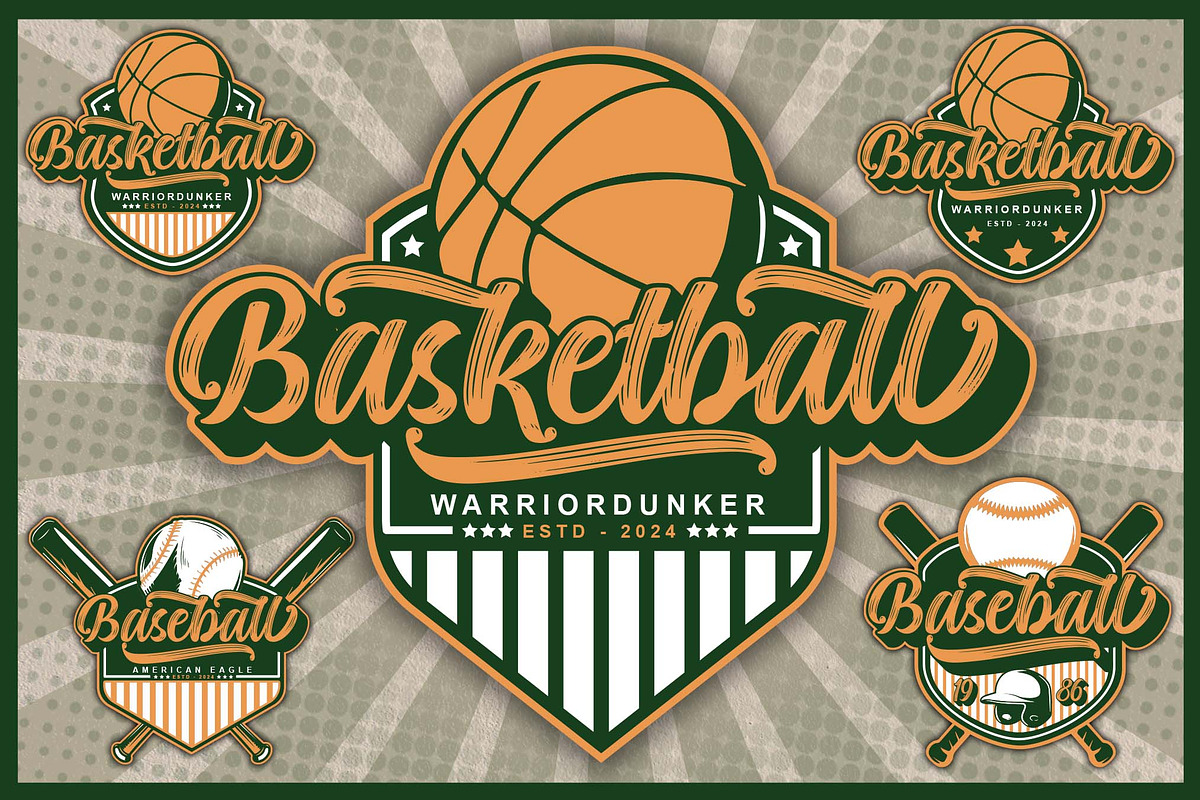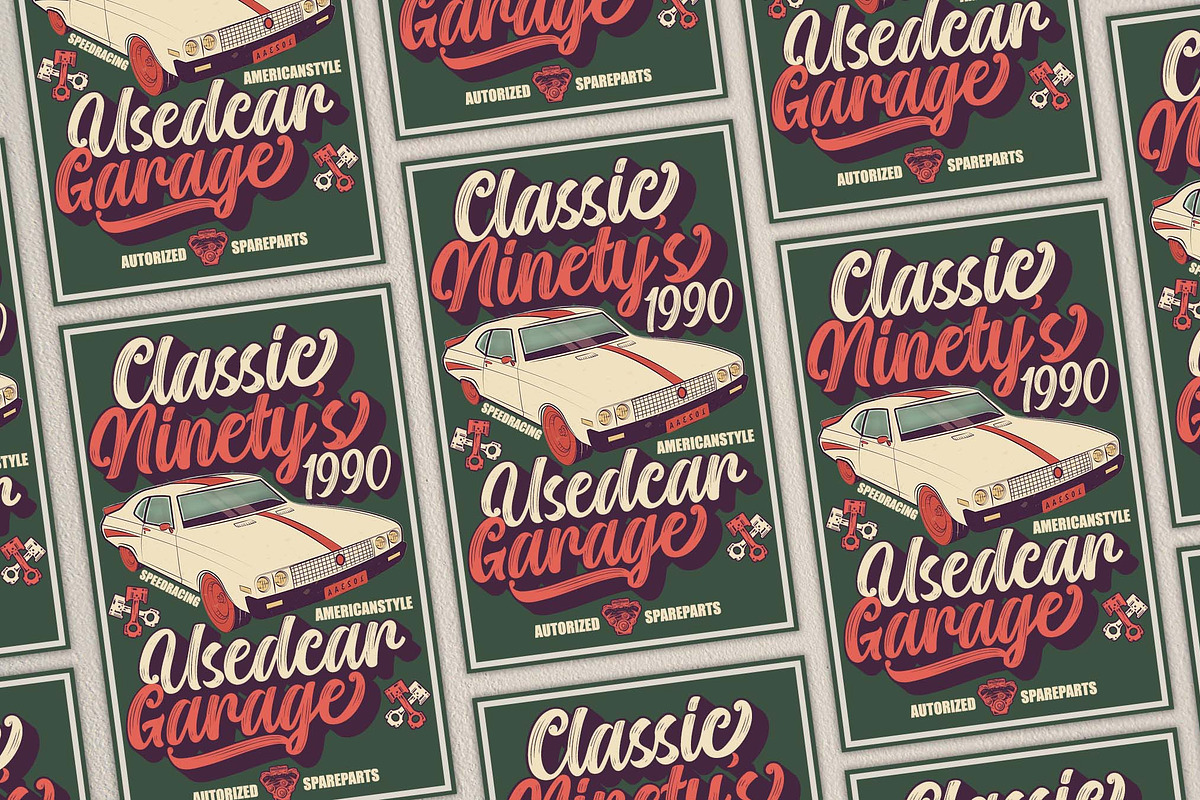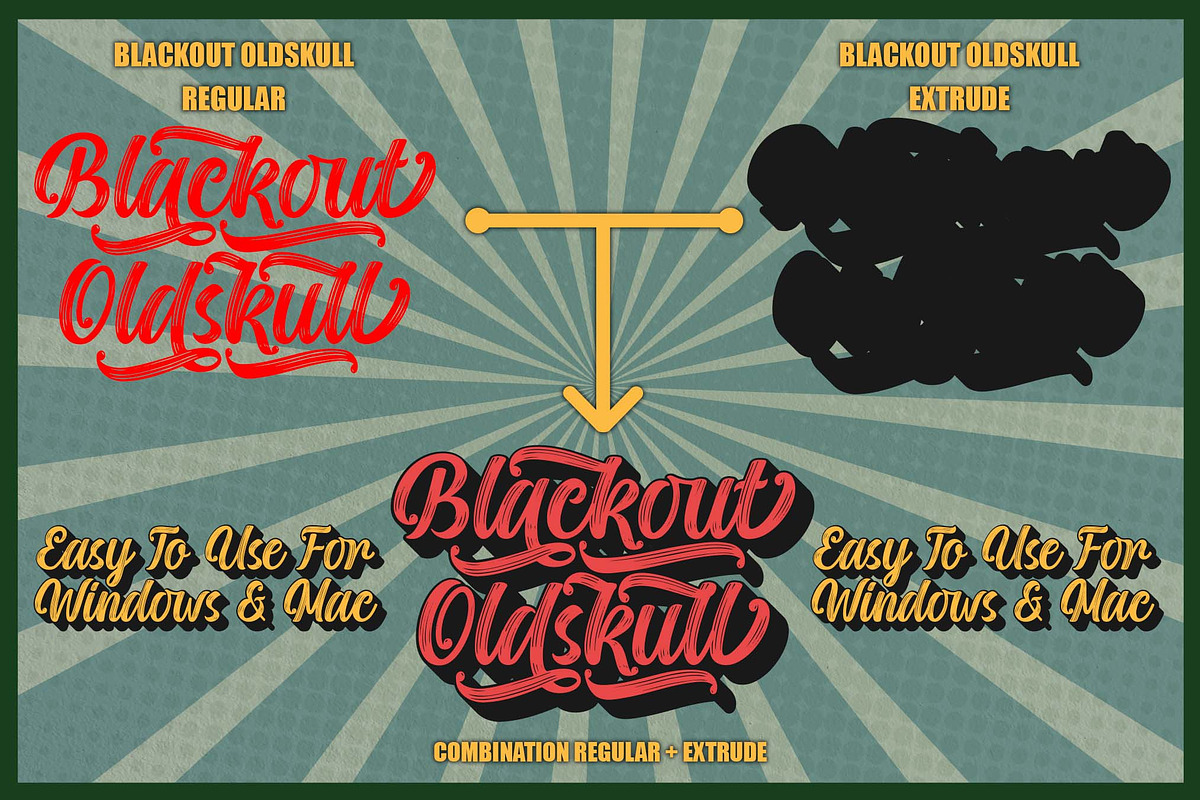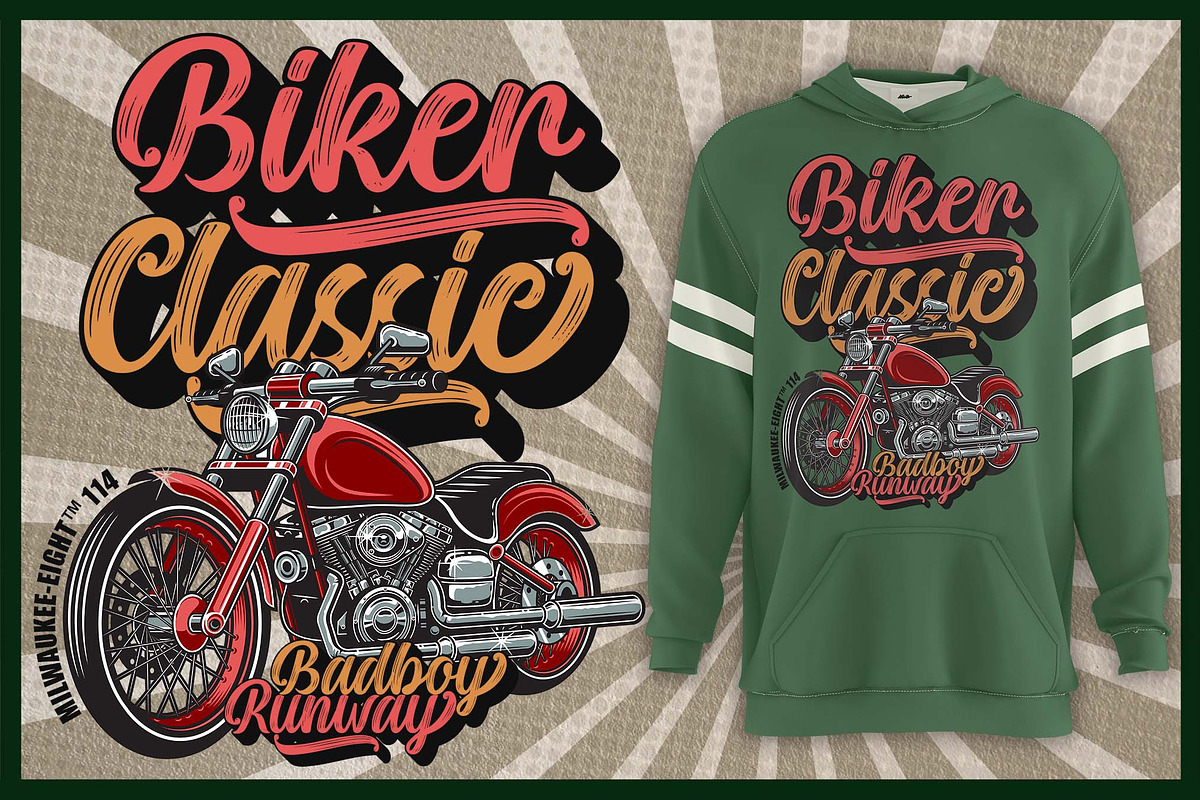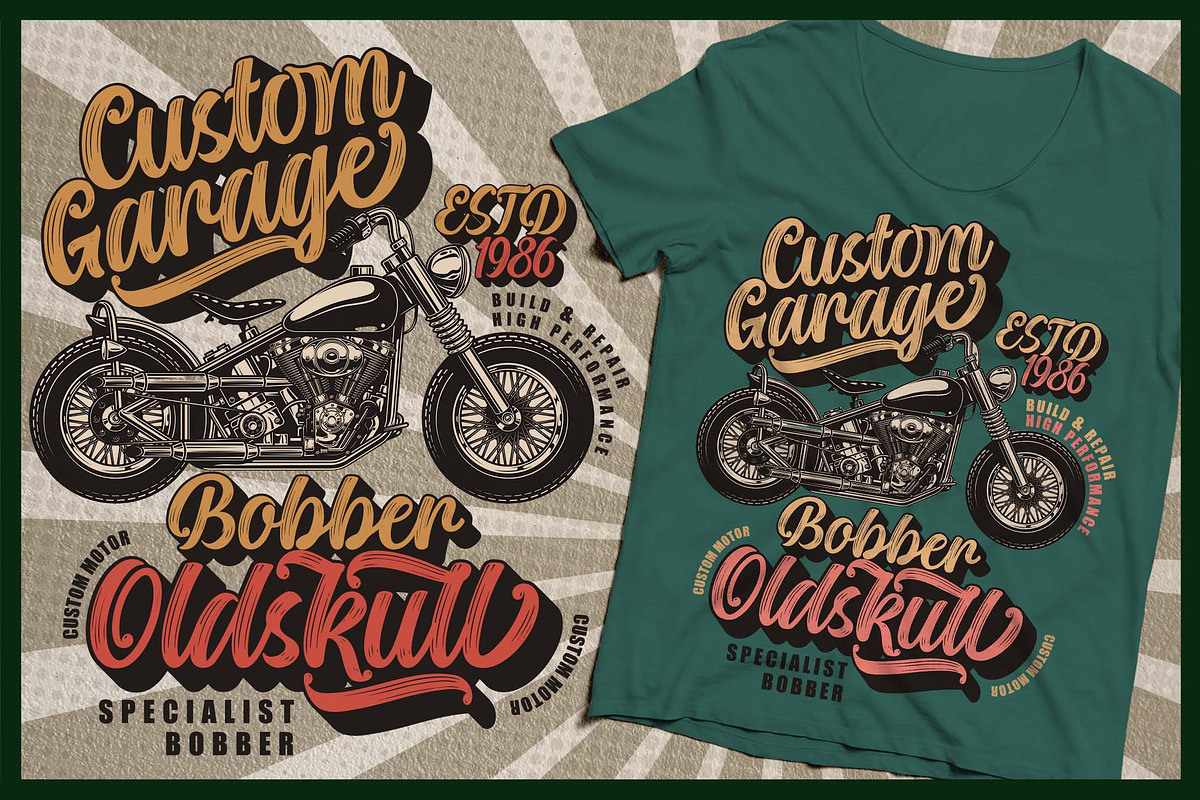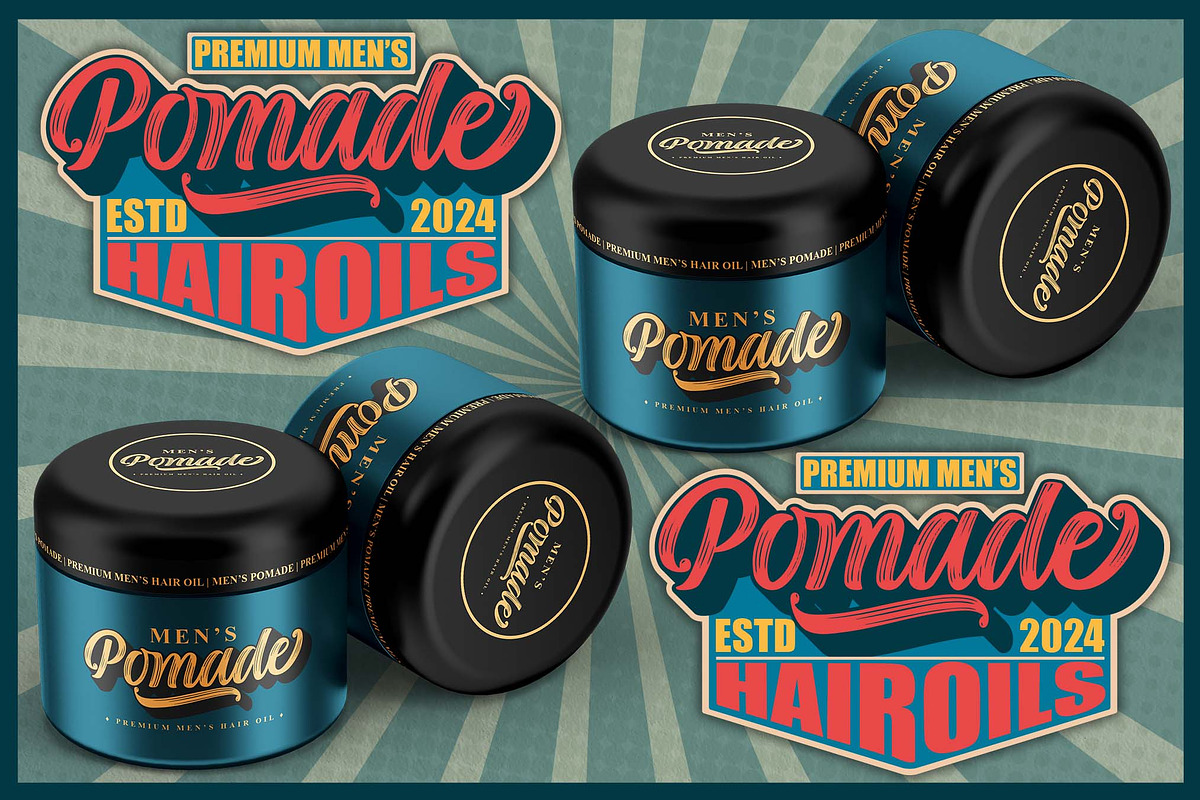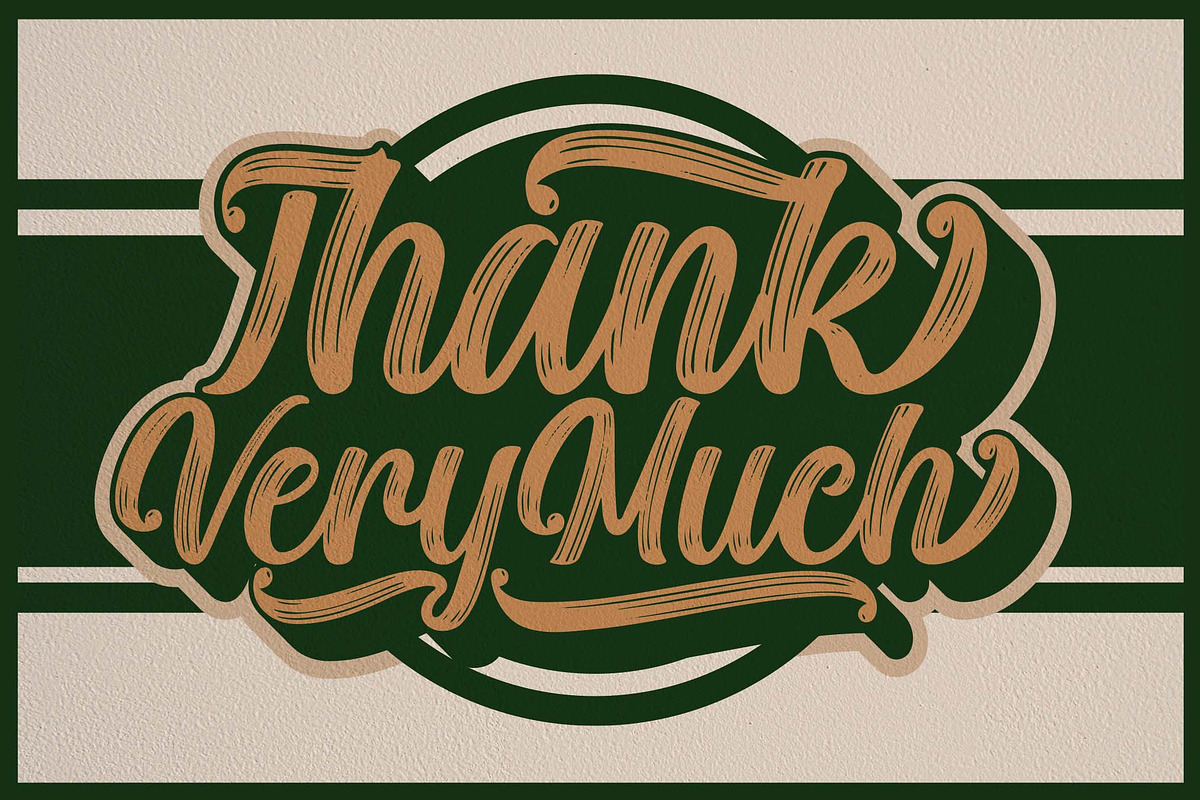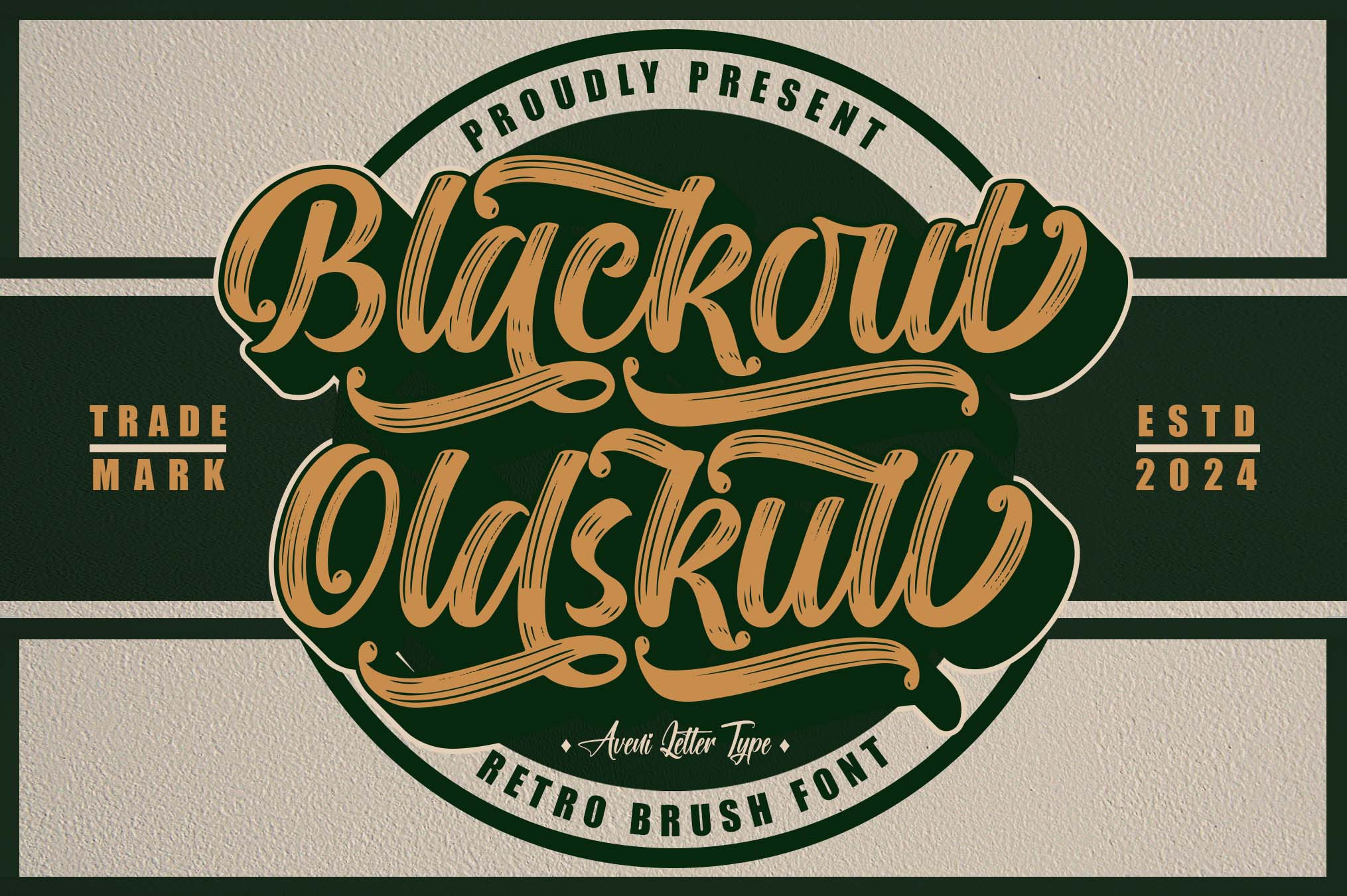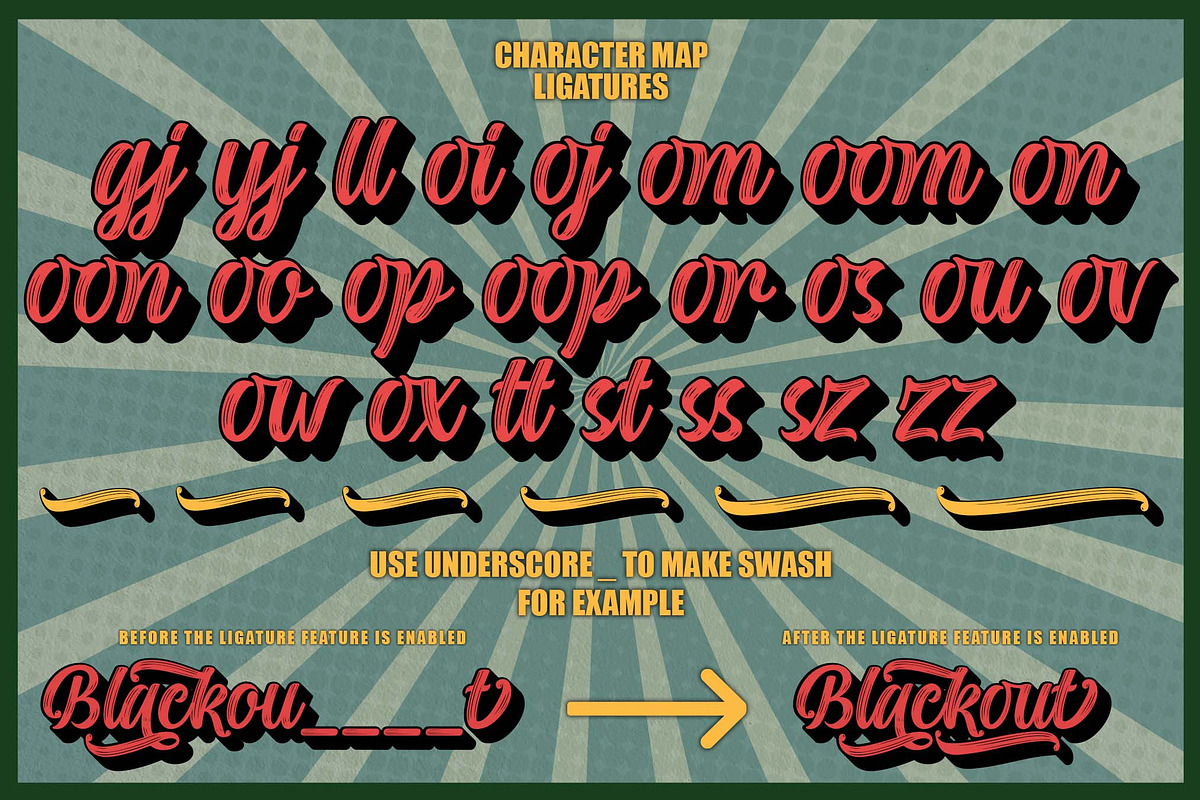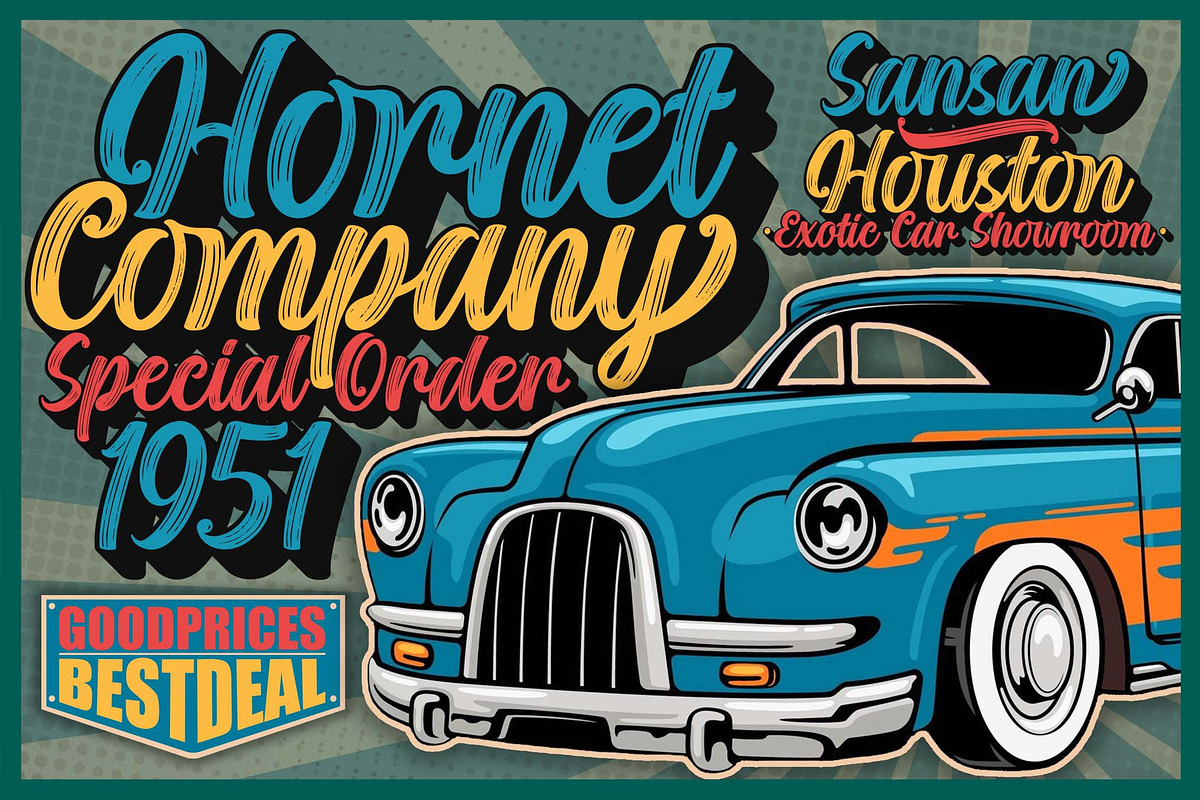
Blackout Oldskull | Handwritten Font
Hello Ladies & Gentlemen, My Name is Blackout Oldskull Font, I was born with retro-style handwriting using a brush and have Extrude as a 3D layer. You can also use this font together to emphasize the appearance of the design you create.
Of course, this Blackout Oldskull font is very Instagrammable. It can be used for many projects that you are working on, such as company branding, logotypes, and product branding, be it clothes/hoodies, company names, shop names, product branding, and many more.
Here I give a little way to use swashes in the Blackout Oldskull font:
Use multiple underscores __ to create swashes of different lengths.
Example: Blackou_t Oldskull
It should be noted that the SWASH in the Blackout Oldskull font can be used when the standard ligature feature is active in your design software.
Blackout Oldskull Featured :
- Ligature & Multilingual Support
- Symbols, Alternates & Swashes